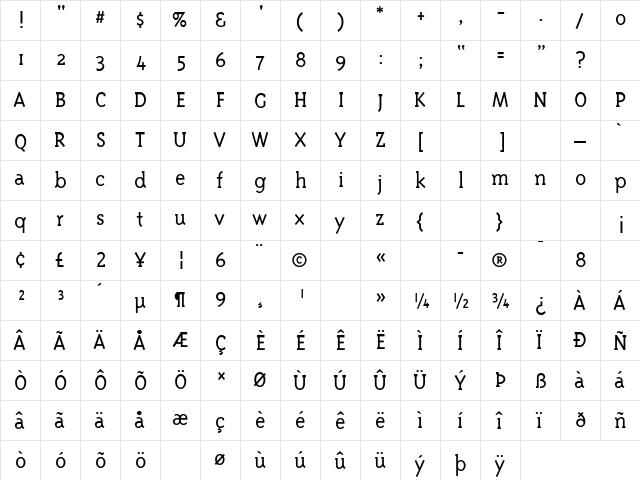
TriplexSerifLight Regular Font Preview
TriplexSerifLight Regular
Design Context for TriplexSerifLight Typeface
TriplexSerifLight brings classic typographic sensibility to the table — its serifs and measured letterforms reflect centuries of print heritage. Its slender proportions lend an understated elegance to any composition.
Pro Tip: Set TriplexSerifLight at slightly larger body copy sizes than you would a regular-weight serif to compensate for its delicate stroke contrast.